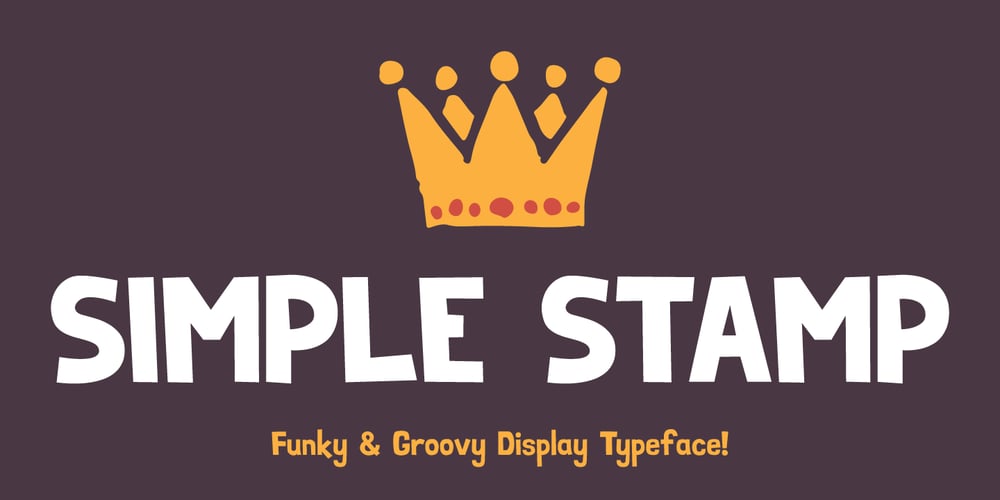
Simple Stamp
Simple Stamp font
Simple Stamp Font Family was designed by Oleg Stepanov and published by Oleg Stepanov. Simple Stamp contains 1 styles and family package options. Simple Stamp is the hand-drawn font. It is good for games, cartoons, posters, chidlren’s books, and for any other places, where loud and funky headlines are needed.